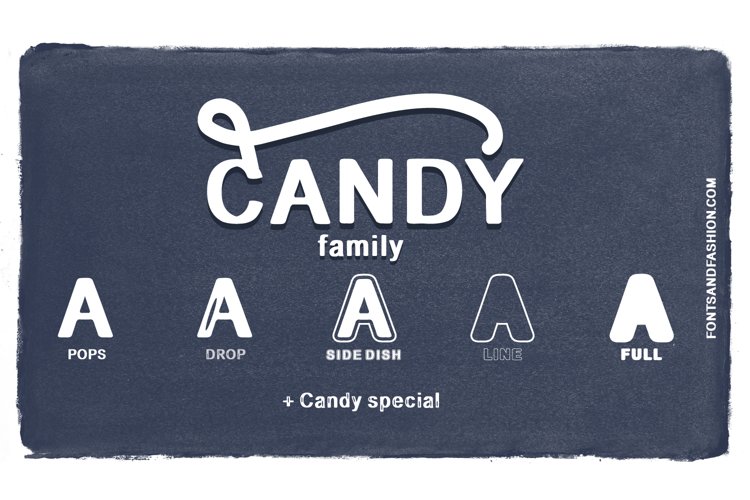
CANDY family
CANDY DROP
CANDY SIDE DISH
CANDY LINE
CANDY SPECIAL
CANDY FULL
CANDY POPS
The CANDY family fonts, is realized up of 5 different styles:
Candy Pops; Candy Drops; Candy Side Dishes; Candy Lines; Candy Full and the extra bonus "Candy Special" elements, a versatile collection of 30 Logor ready to use.
The Candy family font have an Open Type Features.
Each font is composed of 308 total glyphs, whereof 68 Stylistic alternative for several Connecting Uppercase Options.
geometric sans serif style, can be used to create any type of project.
Just use imagination and any creation will become more 'sweet and sparkling!
Try creating print materials and web design, greeting cards, logos showcases, store signatures or maybe sweets?...